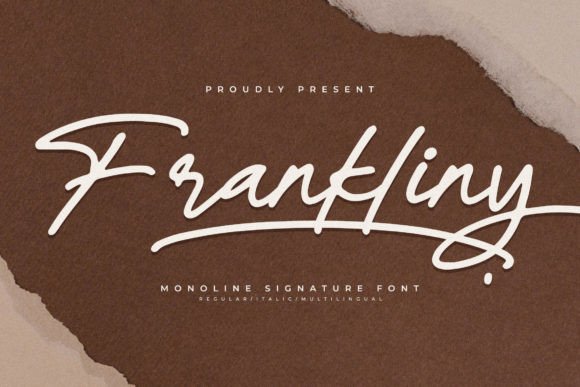
Unleash your creativity with Frankliny Font, a captivating script font family designed to transform your digital designs into breathtaking works of art. Crafted by the skilled hands of Glorytype Studio, Frankliny is a font of unmatched charm and versatility, perfect for script writing projects that demand a touch of elegance and individuality.
With its graceful curves and playful swashes, Frankliny dances across the screen, adding a touch of magic to every word. It's a font that captures the essence of handwritten artistry, evoking a sense of warmth and authenticity that will leave your audience spellbound.
Frankliny is more than just a font; it's a gateway to a world of creative possibilities. Its PUA encoding grants you effortless access to a treasure trove of glyphs and swashes, empowering you to unleash your imagination and create designs that are truly unique and captivating.
Whether you're crafting heartfelt letters, designing enchanting social media posts, or creating stunning logos, Frankliny is the perfect companion for your creative journey. Its versatility knows no bounds, adapting seamlessly to a wide range of design projects.
Experience the magic of Frankliny today and elevate your designs to new heights. Let your creativity flow freely as you explore the endless possibilities that await you with this extraordinary font.